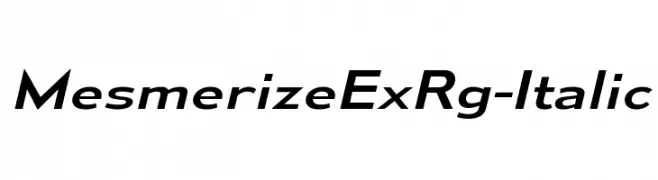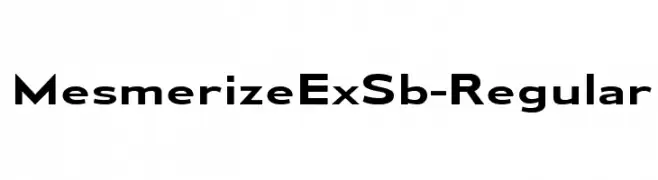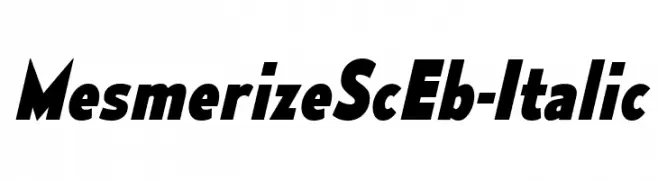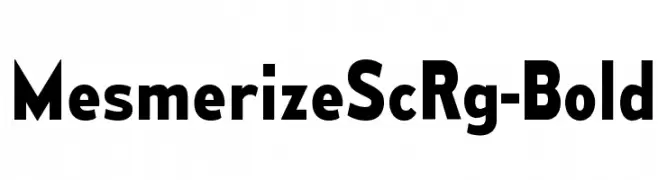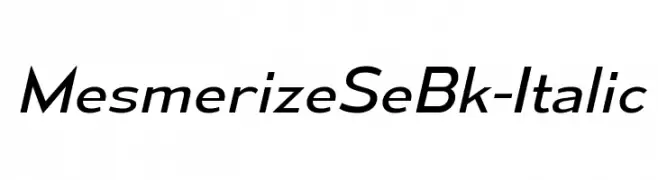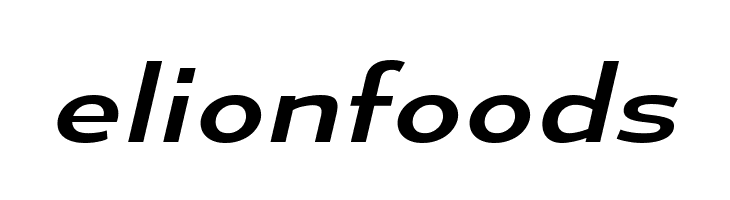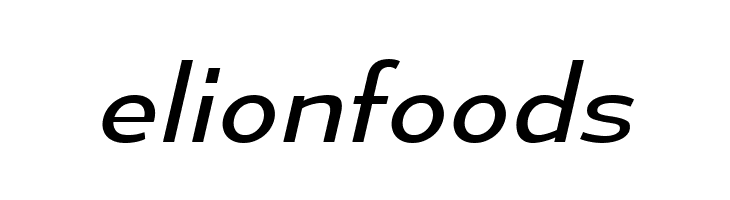
A sleek, modern italic font with dynamic and energetic styling.
A modern, bold italic font with a sleek and dynamic style.
A sleek, modern italic font with clean lines and consistent stroke width.
A modern sans-serif font with clean lines and excellent readability.
A sleek, modern italic font with thin, elongated characters.
A modern, italicized font with medium contrast and a sleek, condensed style.
A bold, italic font with a dynamic and energetic style.
A bold, italic, and condensed font with a modern and dynamic style.
A modern, bold sans-serif font with a geometric style and excellent readability.
A bold, modern font with clean, geometric lines and excellent readability.